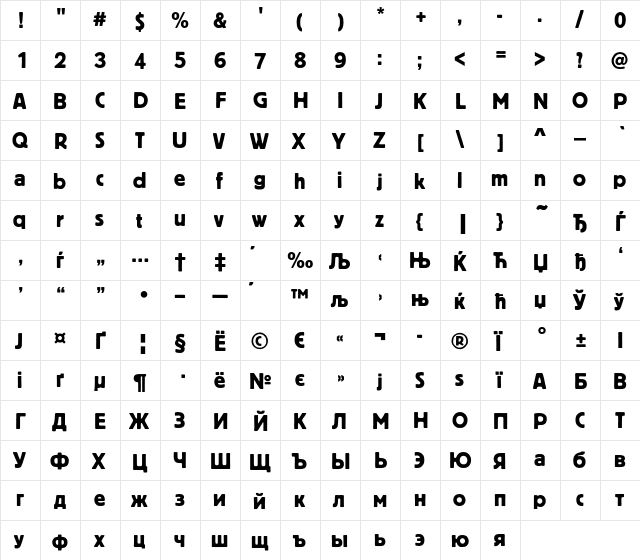
BlocC Regular
Design Context for BlocC Typeface
BlocC takes a measured approach to typography — its balanced proportions and neutral character make it a reliable workhorse for both digital and print work.